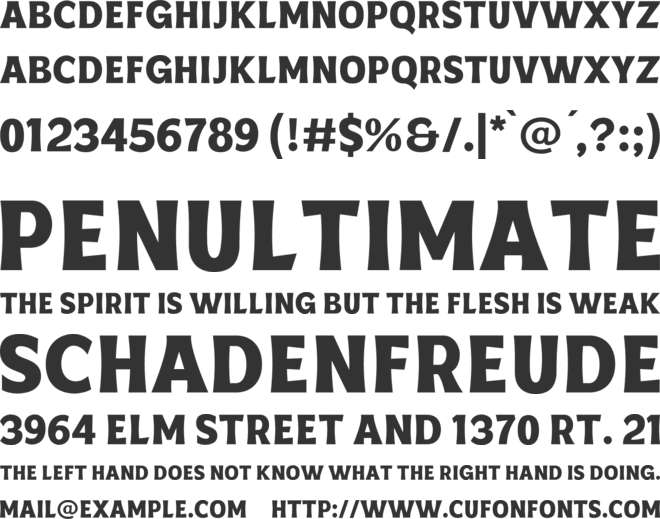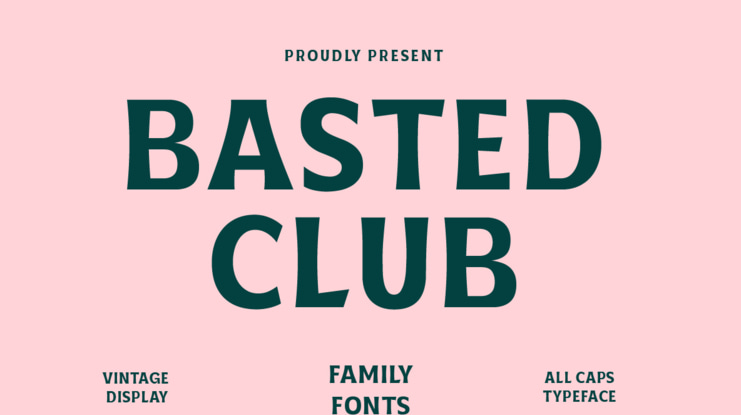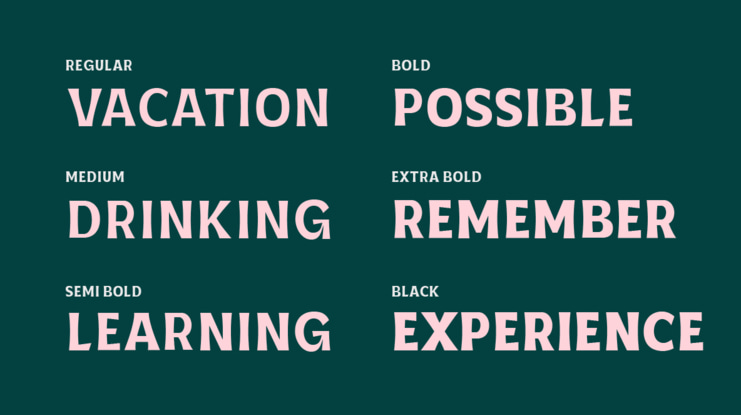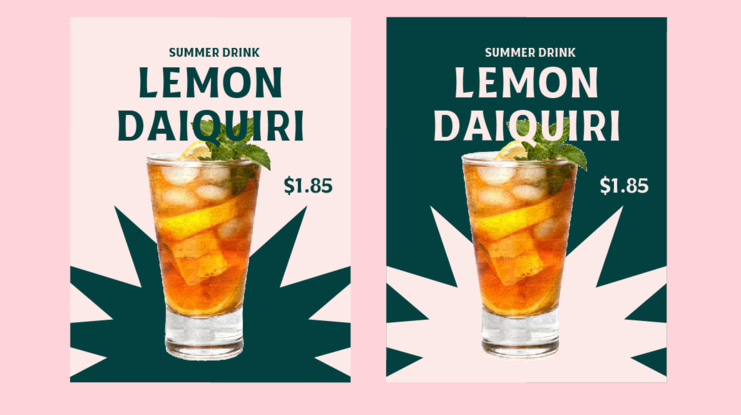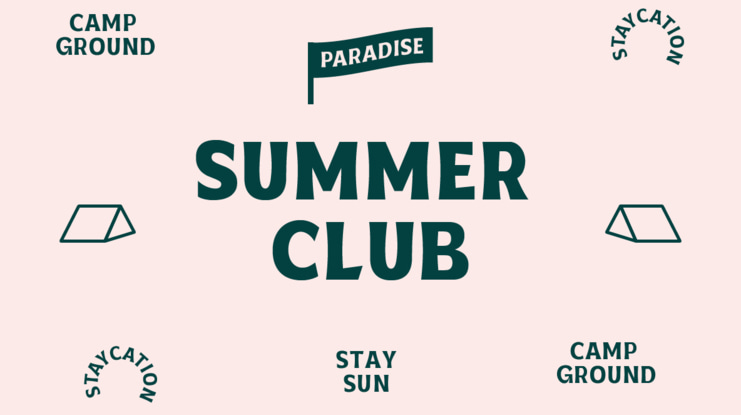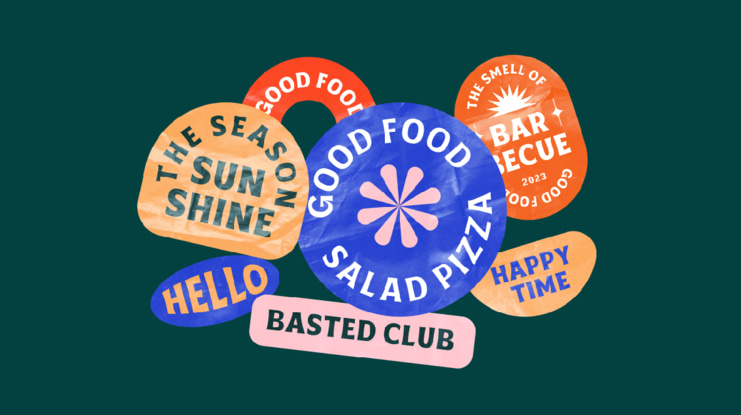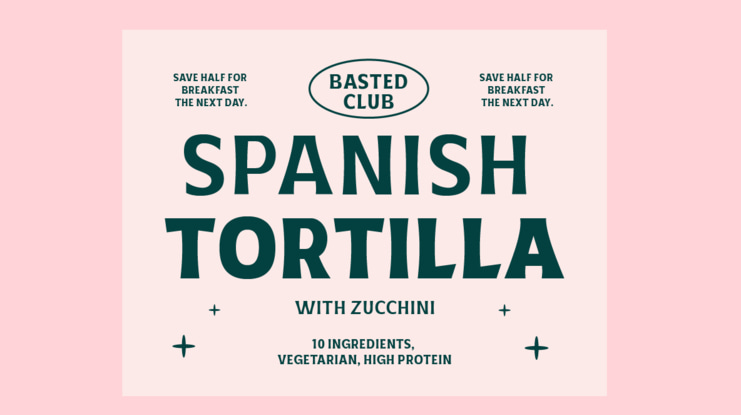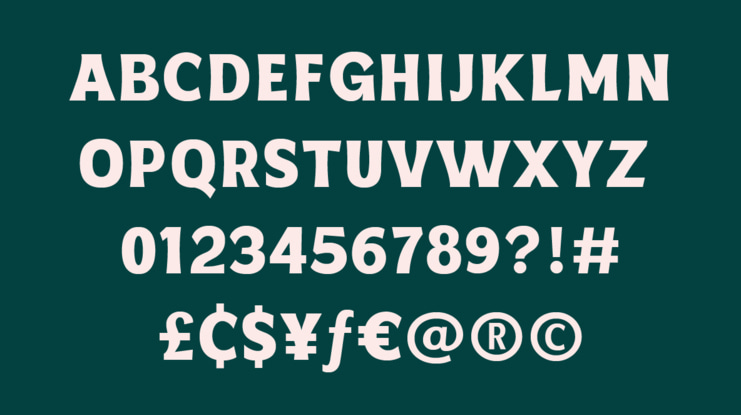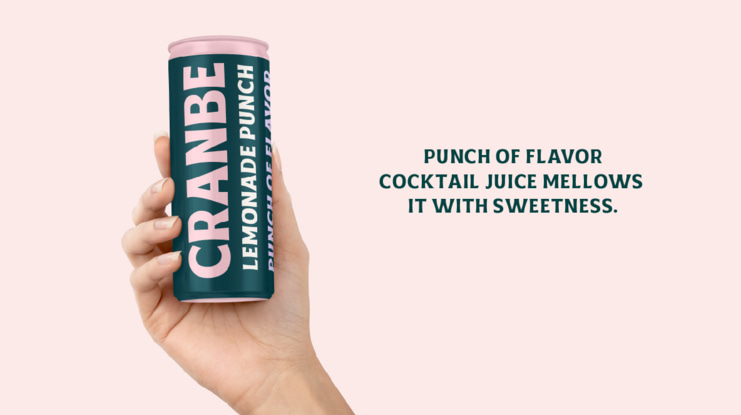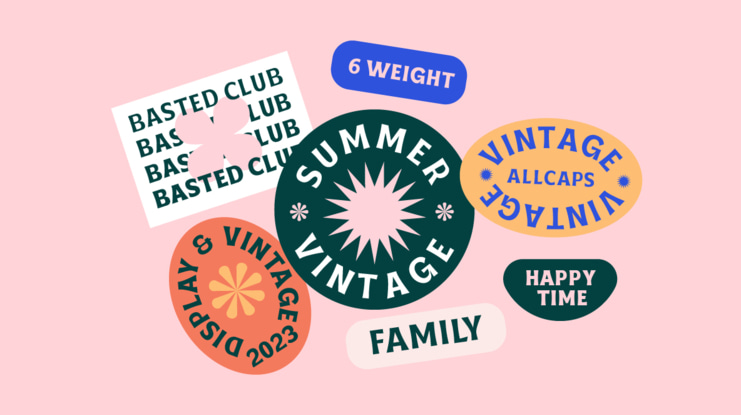
Basted Clubs Font Family
Basted Club Vintage font is a font family inspired by the retro aesthetic and style of old nightclub typography. This font has a classic and vintage impression with strong and firm letterforms.
Consisting of Regular, Medium, Semi Bold, Bold, Extra Bold and Black font variations, this font is suitable for design projects with a retro feel such as posters, merchandise, logos, or product branding. With strong characters, this font is able to create a clean and bold look.